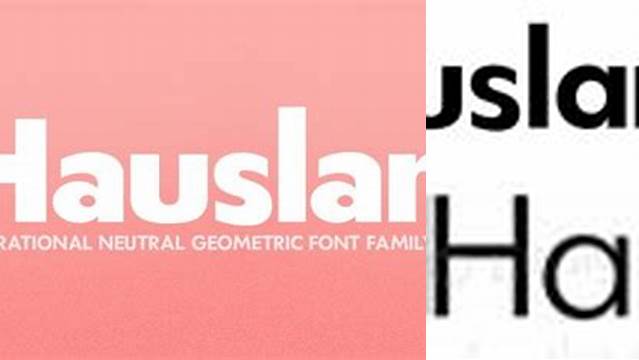
Hauslan Font: An Introduction
Before we get into the nitty-gritty of downloading, let's understand what makes Hauslan so special. This font is known for its clean lines, modern aesthetic, and versatility. Whether you're designing a logo, crafting a website, or working on print materials, Hauslan can add a touch of sophistication. Its readability across various sizes and platforms makes it a go-to choice for designers and creatives alike. It's got a certain je ne sais quoi that makes designs pop, wouldn't you agree? Now, if you're using Hauslan for design, it's important to consider the weight, kerning and letter spacing. By managing those factors, you could create amazing designs!